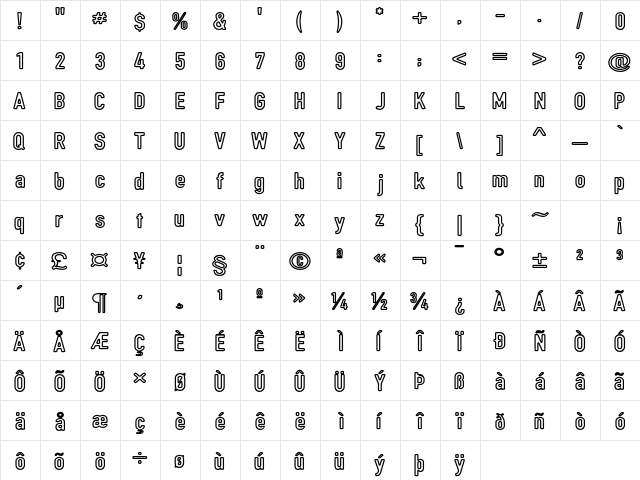
DIN Rundschrift BreitKont
Design Context for DIN Rundschrift Typeface
DIN Rundschrift is a composed and adaptable typeface that performs quietly and consistently across a wide range of design contexts.